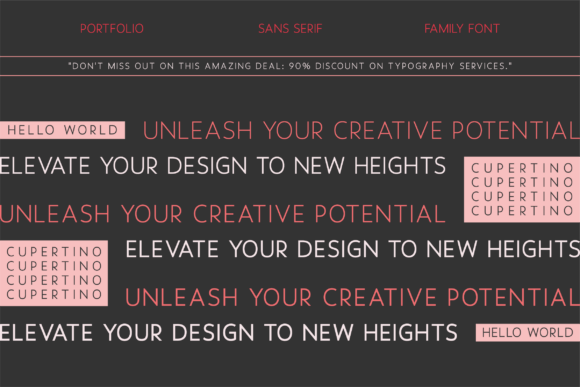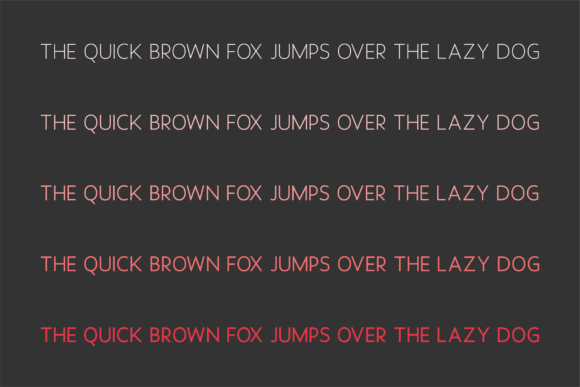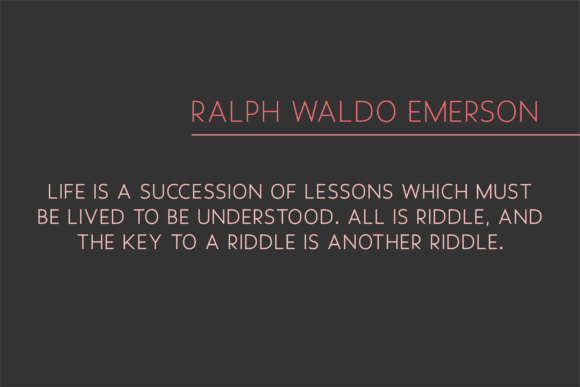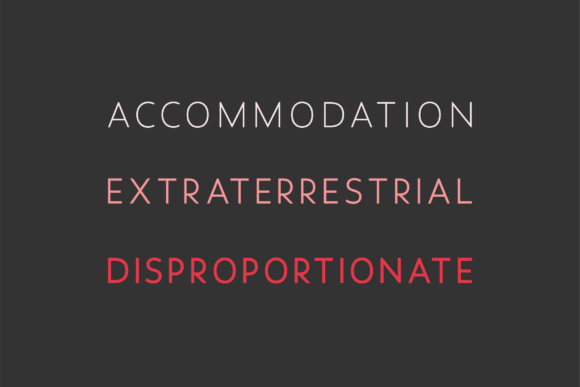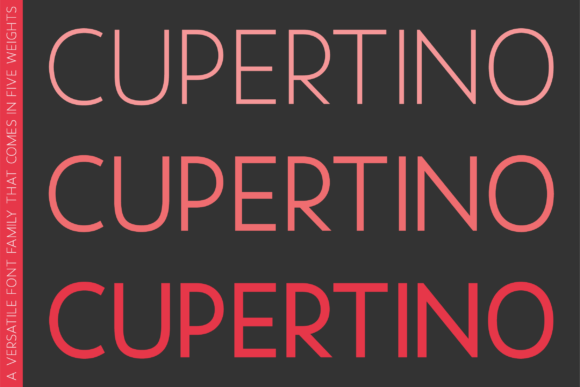
Introducing Cupertino Font Family — A Masterpiece of Elegance and Minimalism
In the realm of typography, few fonts manage to capture the essence of modern design while exuding an air of sophistication and simplicity. Cupertino Font, a newly crafted sans-serif font family, achieves this delicate balance with remarkable precision. With its 5 distinct weights, Cupertino Font offers designers an unparalleled level of versatility, making it an ideal choice for a wide range of projects, from high-end magazines and logos to striking film posters and beyond.
The Genesis of Cupertino Font
Cupertino Font was born out of a desire to create a typeface that embodies the spirit of contemporary luxury while maintaining a timeless appeal. Its design is a testament to meticulous craftsmanship, with every detail carefully considered to ensure that the font is both elegant and highly legible. Whether you’re working on a branding project, a fashion magazine, or a movie poster, Cupertino Font is designed to elevate your designs, adding a touch of sophistication and poise.
Key Features of Cupertino Font
• 5 Distinct Weights: Cupertino Font offers a range of 5 weights, from light to bold, providing designers with the flexibility to use the font across various applications and still maintain visual coherence. This versatility is particularly valuable in multi-platform projects where the typography needs to adapt seamlessly.
• Sans-Serif Elegance: The sans-serif design of Cupertino Font lends it a clean and modern look, making it perfect for designs that require a sleek and contemporary feel. The font’s simplicity ensures that it works well in both digital and print formats.
• High Legibility: One of the standout features of Cupertino Font is its exceptional legibility. Even at smaller sizes, the font remains clear and readable, making it an excellent choice for body text in magazines, websites, and other applications where readability is paramount.
• Wide Range of Applications: From fashion magazines and luxury brand logos to film posters and digital interfaces, Cupertino Font’s adaptability makes it suitable for a broad spectrum of design projects. Its elegance and minimalism ensure that it complements a variety of design aesthetics.
Design Philosophy
The design philosophy behind Cupertino Font revolves around the principles of minimalism and elegance. The creators aimed to produce a font that feels both contemporary and timeless, avoiding unnecessary embellishments while focusing on clean lines and precise curves. This approach not only makes Cupertino Font highly versatile but also ensures that it will remain relevant for years to come, unaffected by fleeting design trends.
Transform Your Designs with Cupertino Font
Unlocking Creativity
Cupertino Font is more than just a typeface; it’s a tool for unlocking creativity. Its elegant design and versatile nature make it an excellent choice for designers looking to push the boundaries of their work. With Cupertino Font, you can:
• Create stunning visual identities for brands that exude luxury and sophistication.
• Design captivating magazine layouts that engage readers and elevate your publication.
• Craft compelling film posters that capture the essence of the movie and draw audiences in.
• Develop beautiful digital interfaces that are both functional and aesthetically pleasing.
Font Name Cupertino Font
Author Nan Design
Cupertino Font represents a significant addition to the world of typography, offering designers a unique blend of elegance, minimalism, and versatility. Its carefully crafted design ensures that it meets the demands of modern design while providing a timeless quality that will keep your creations looking fresh for years to come. Whether you’re working on a high-end brand project, a creative editorial piece, or a digital app, Cupertino Font is poised to become your go-to typeface for projects that demand the very best.
Discover the transformative power of Cupertino Font and take your designs to new heights of creativity and sophistication.